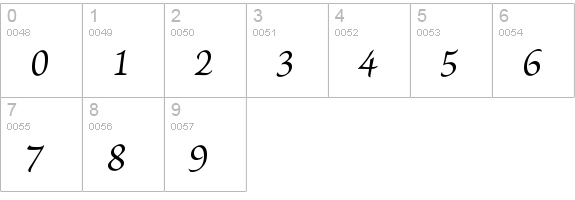
Brioso Pro Italic Caption is a distinctive, italic variant in the Brioso typeface family \xE2\x80\x94 well suited to design and typography projects.
Brioso Pro Italic Caption font strikes the perfect balance between elegance and readability, making it the ideal choice for captions and small text. Its sleek and stylish italic design adds a touch of sophistication to any project, while ensuring that text remains clear and legible. The seamless curves and delicate serifs of Brioso Pro Italic Caption font create a harmonious flow of text, enhancing the overall aesthetic appeal of any design. Whether used for print or digital applications, this font exudes a sense of refinement and professionalism. Best of all, Brioso Pro Italic Caption font is completely free to download at FontsMarket.com, making it accessible to designers and creators of all levels. With its versatility and timeless appeal, this font is sure to elevate any project to new heights of elegance and style.